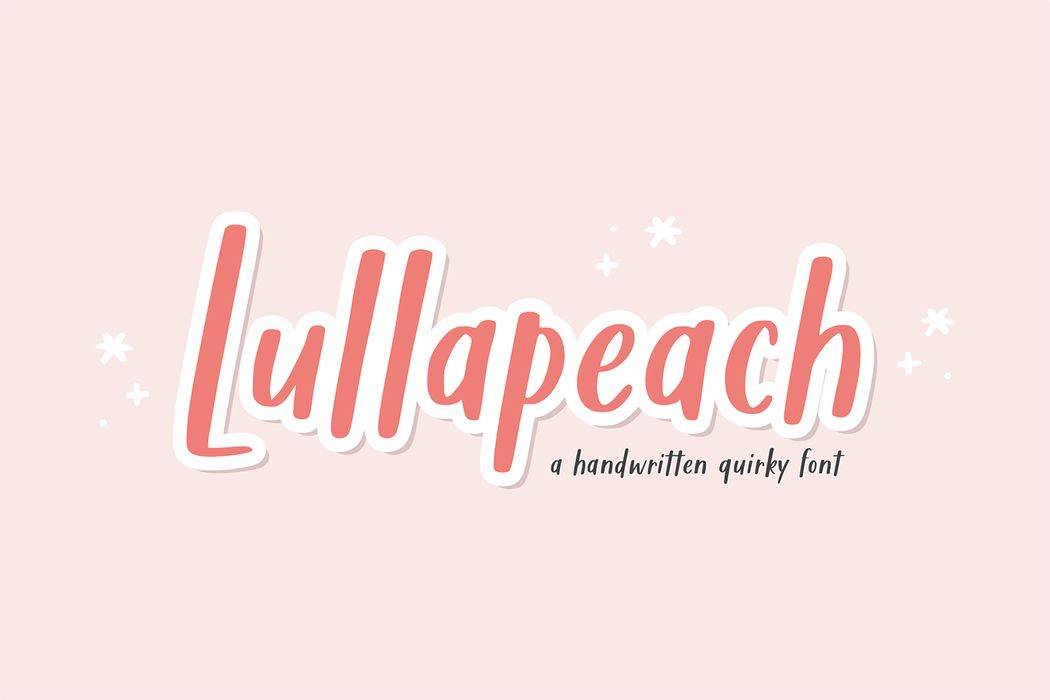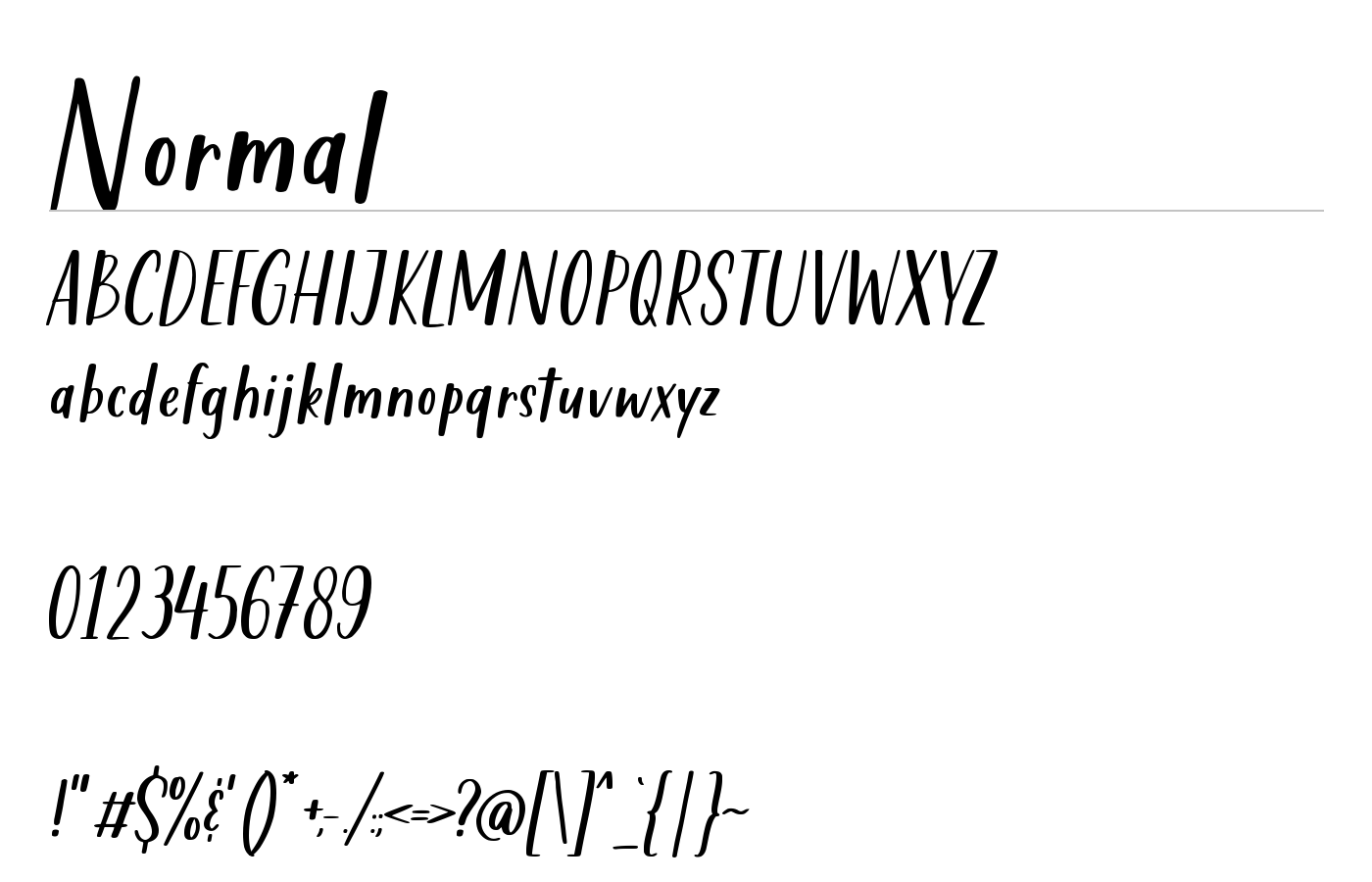
Lullapeach is a slim, handwritten-style sans serif font that radiates a casual and friendly vibe with its tall, narrow letterforms and lively strokes. Its slightly uneven base and flowing curves give it an organic, approachable feel, making it ideal for creative branding, invitations, and playful editorial designs where a personal touch is desired. This font works well in headlines and short texts, adding charm and personality without overwhelming the content.
Lullapeach Font